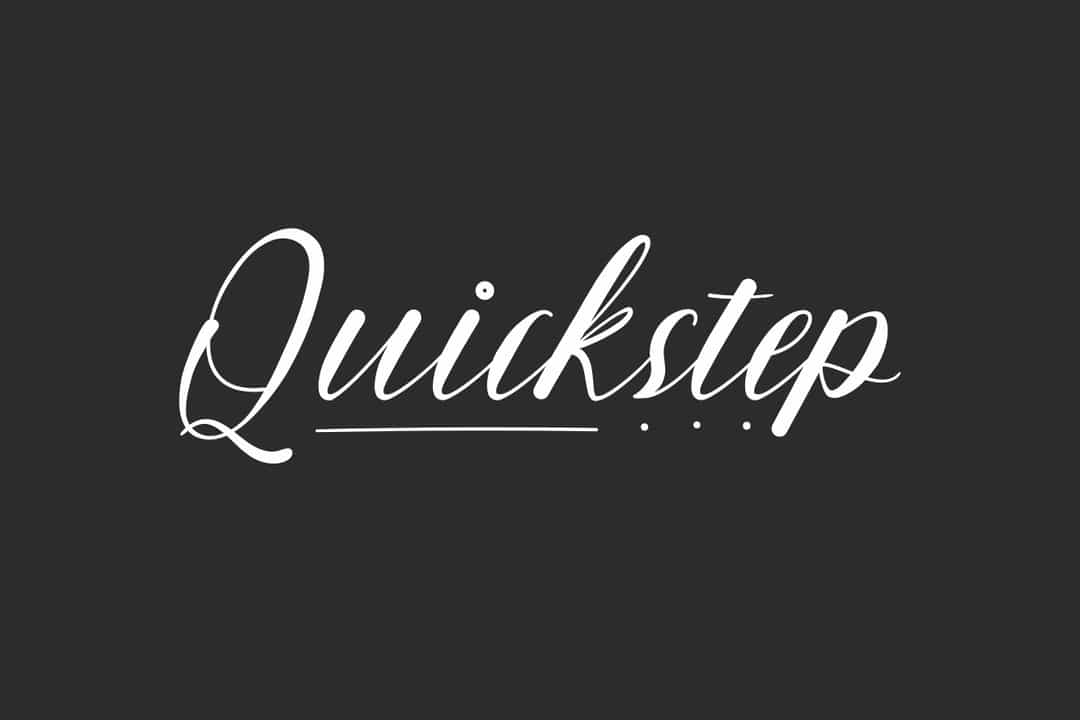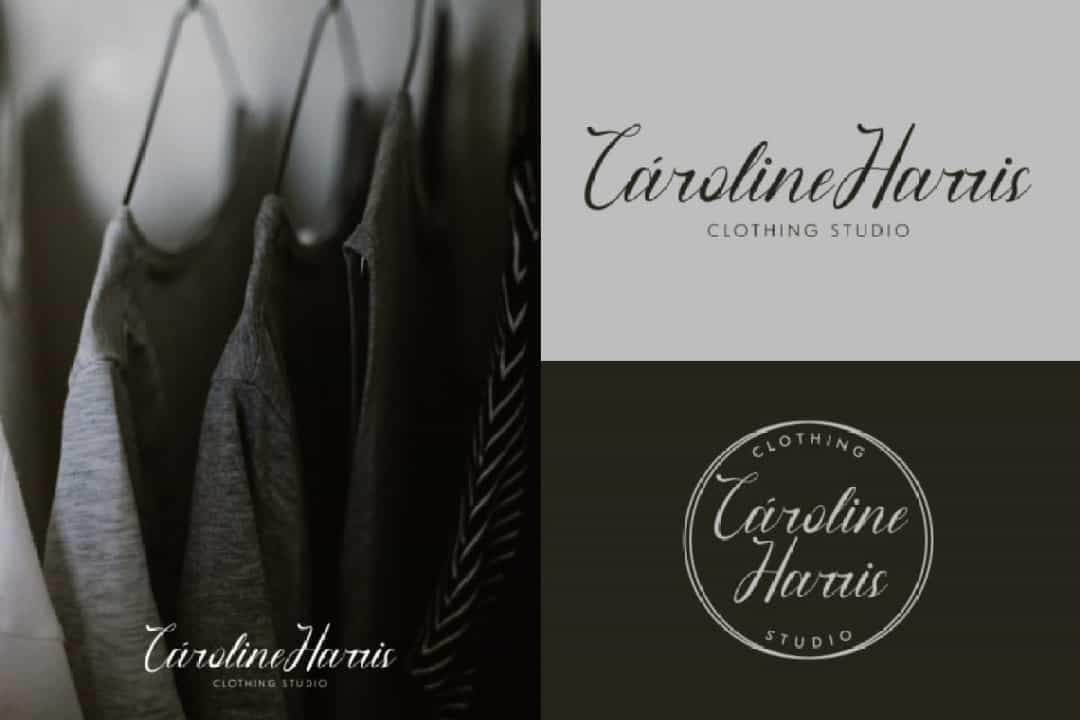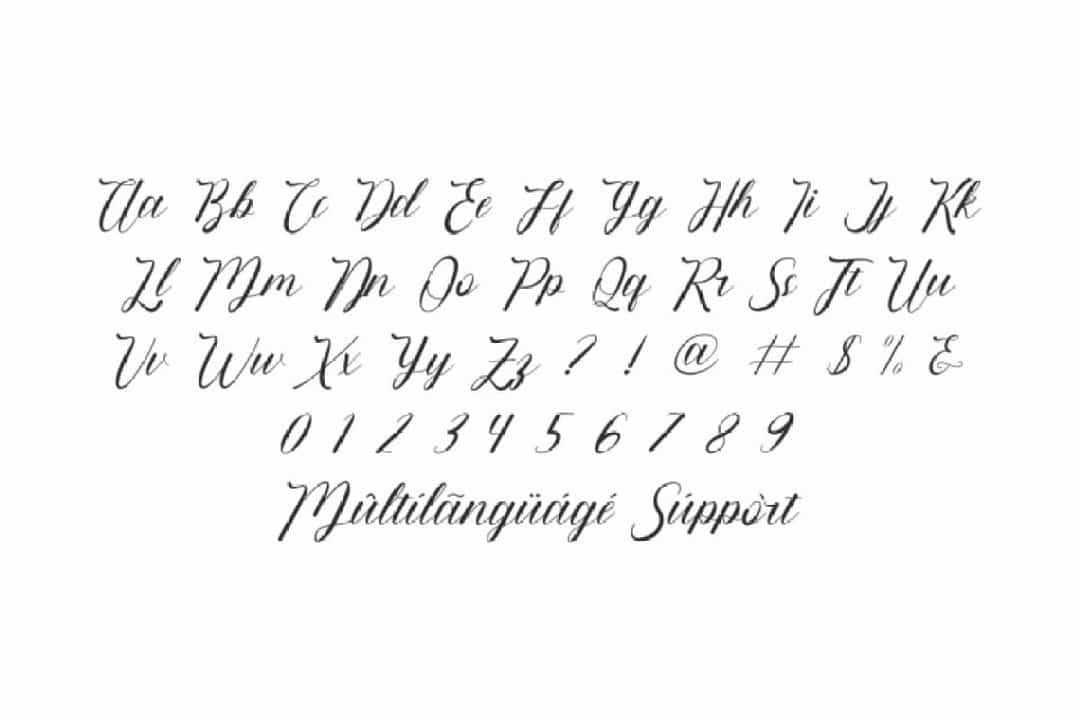
Quickstep is a beautiful Calligraphy font which has combined the elements of traditional and modern typography. Every single letter of this font has been designed with a lot of detail to try to make it as pleasing to the eye as possible and the inspiration behind its design came from Italian women and their writing styles as well as manuscripts from the past. Quickstep has been designed to complement other floorings and with the right touch it will definitely give life and professionalism into any design!